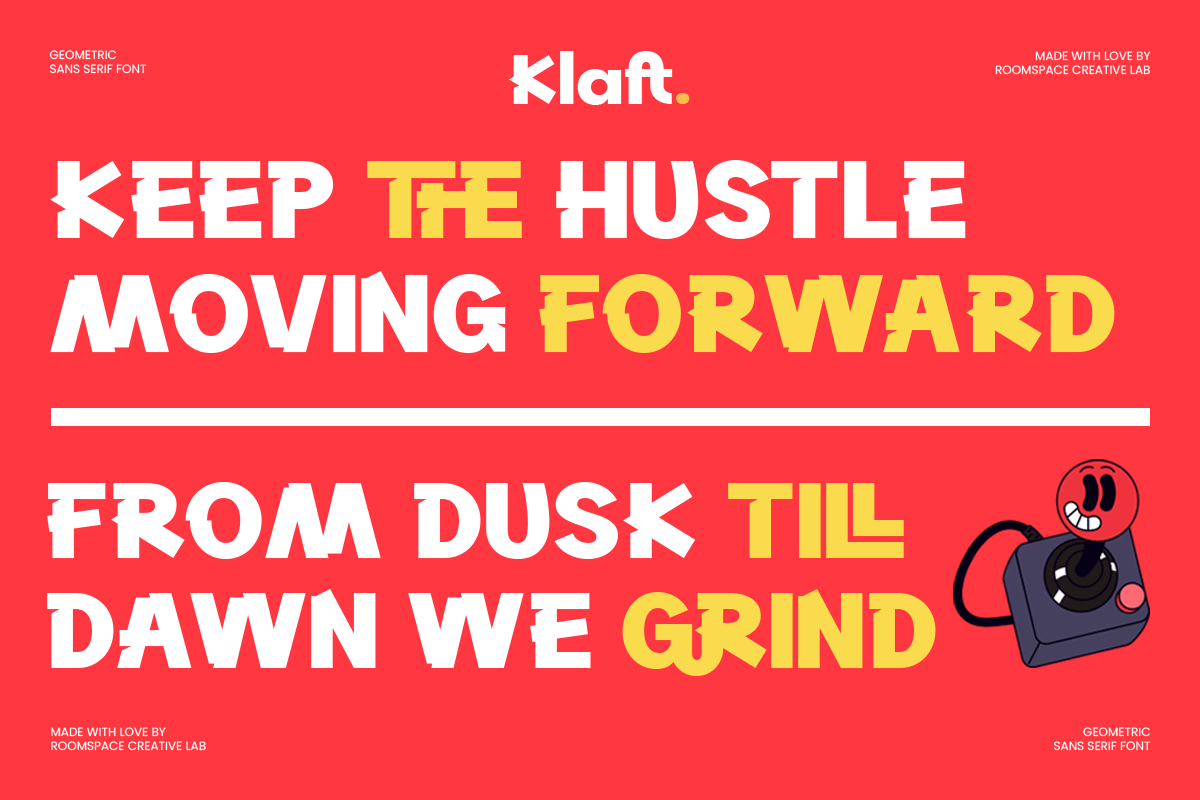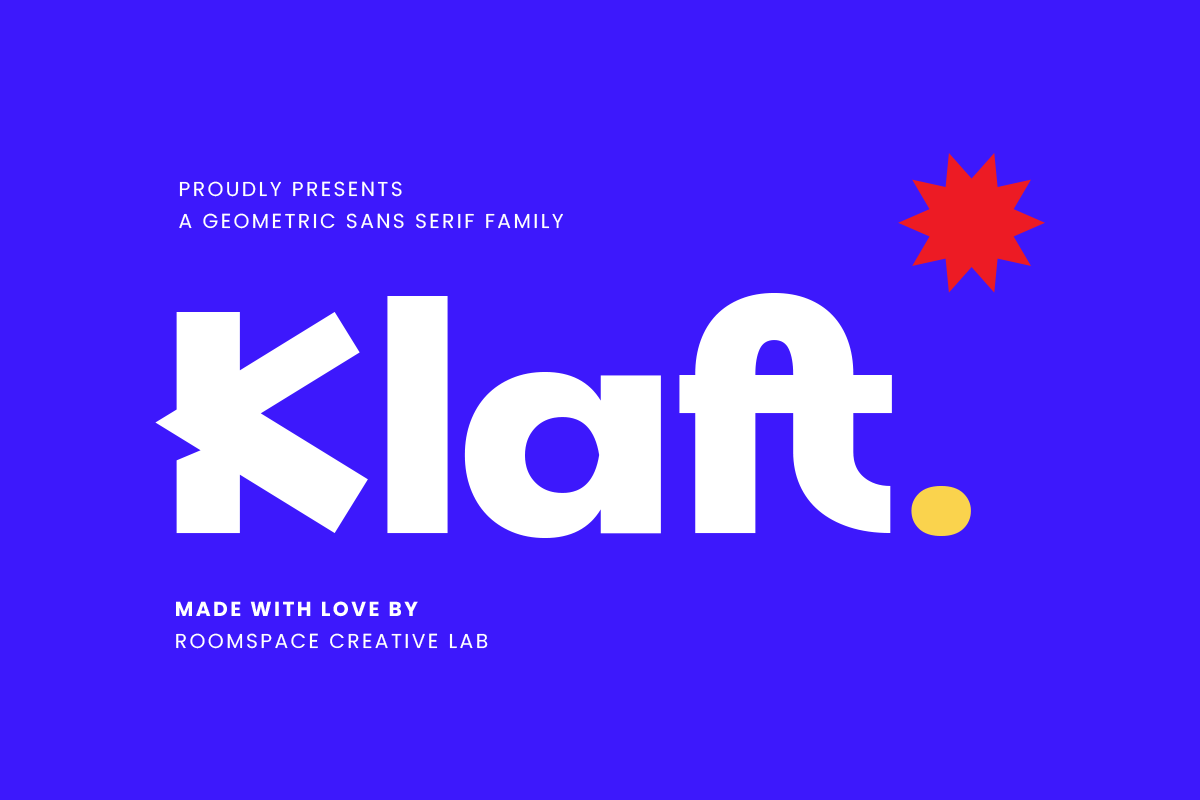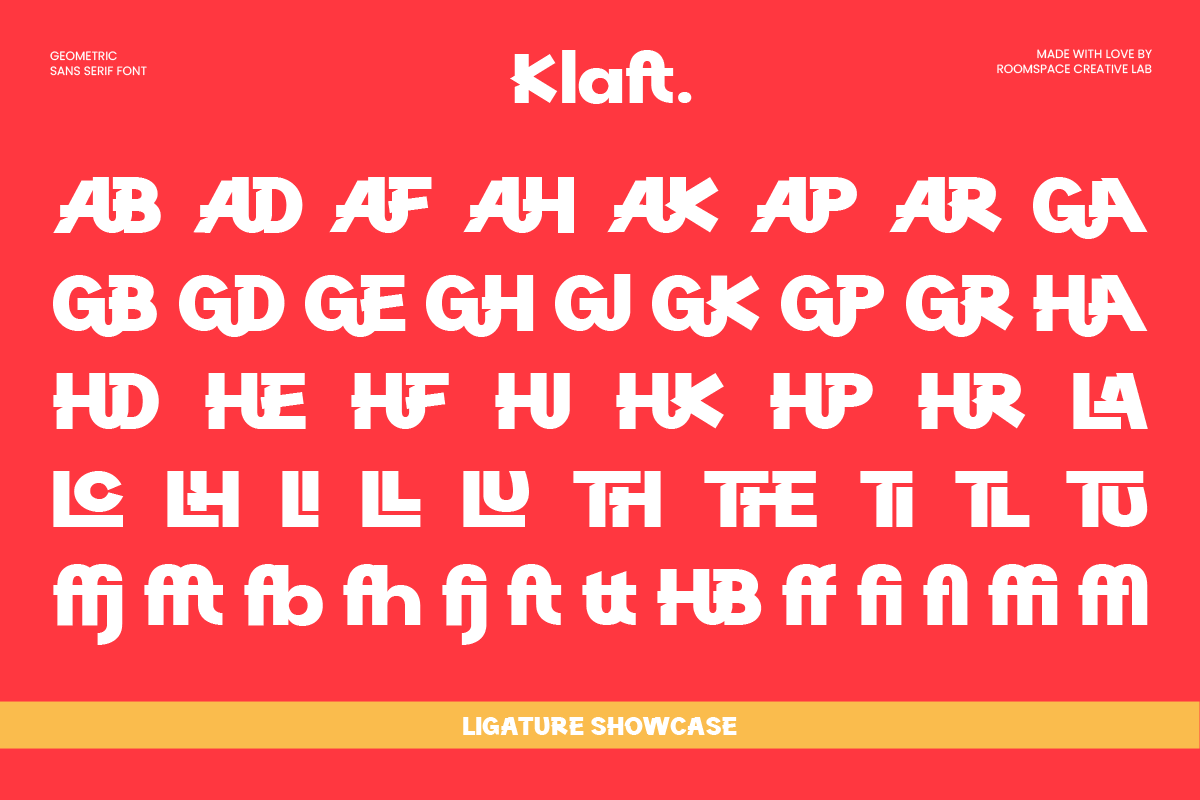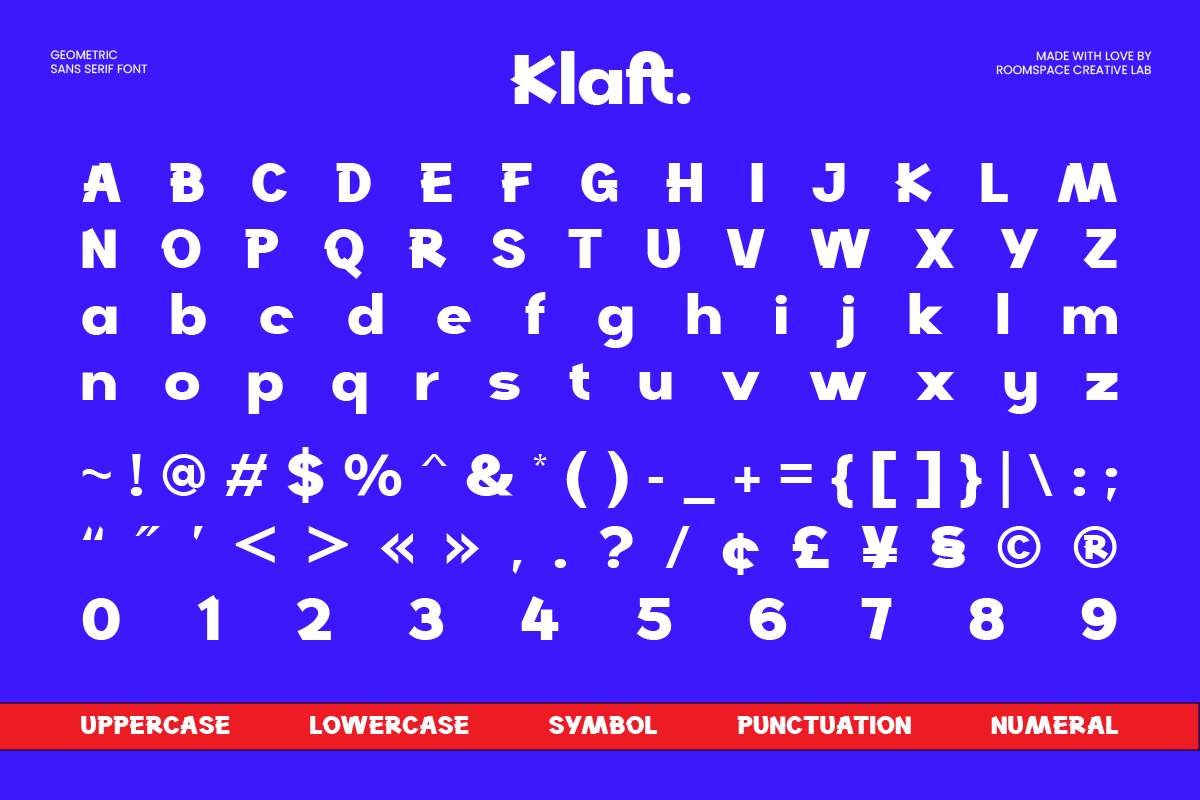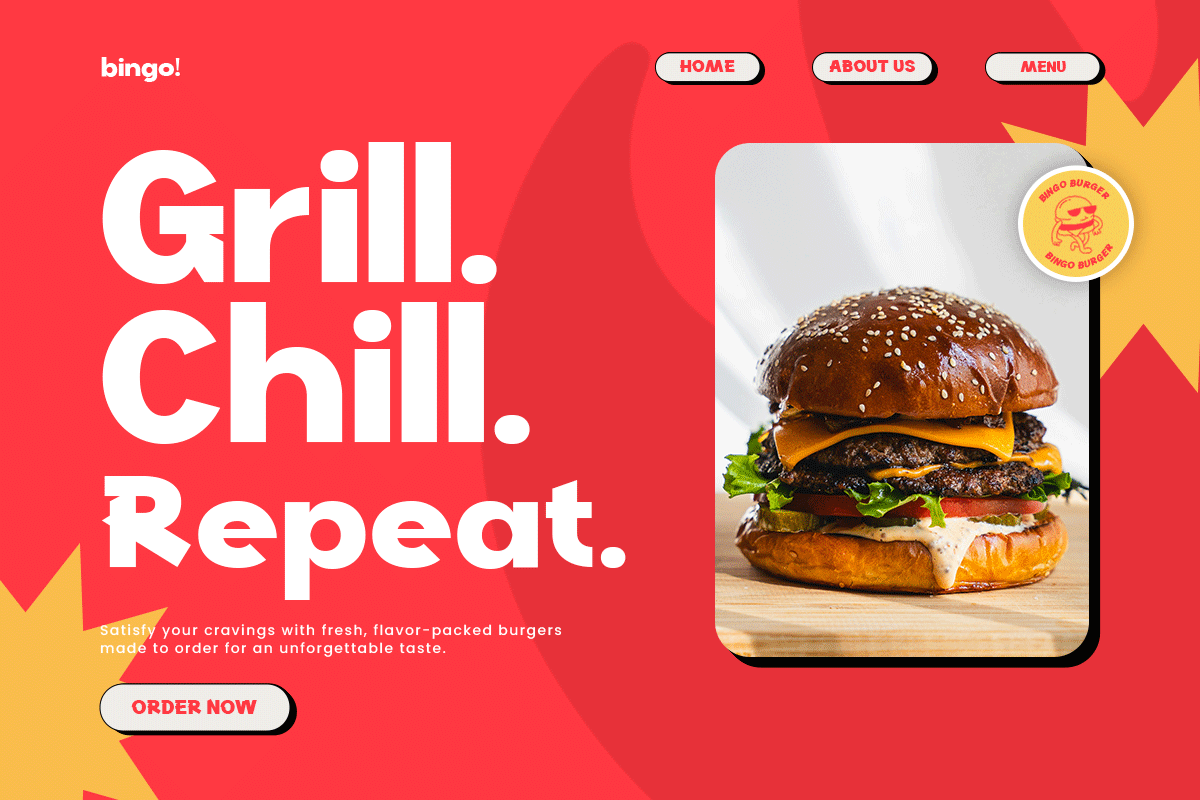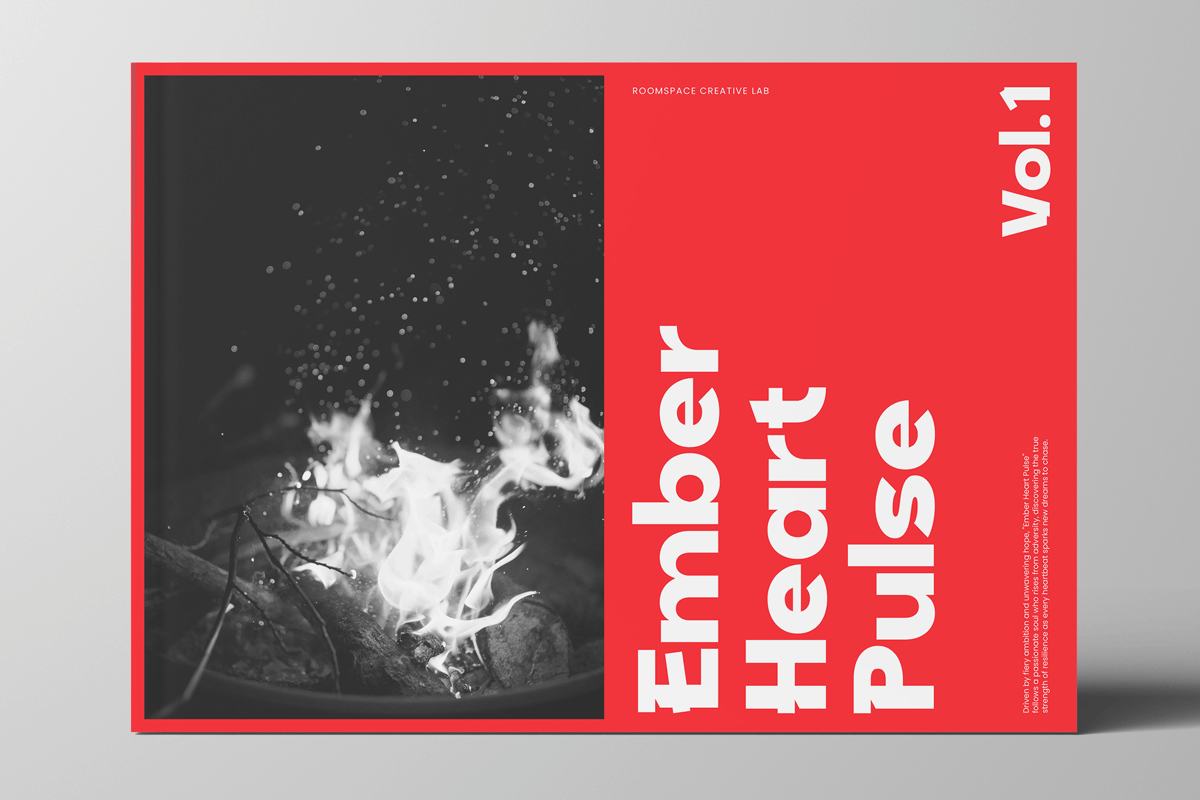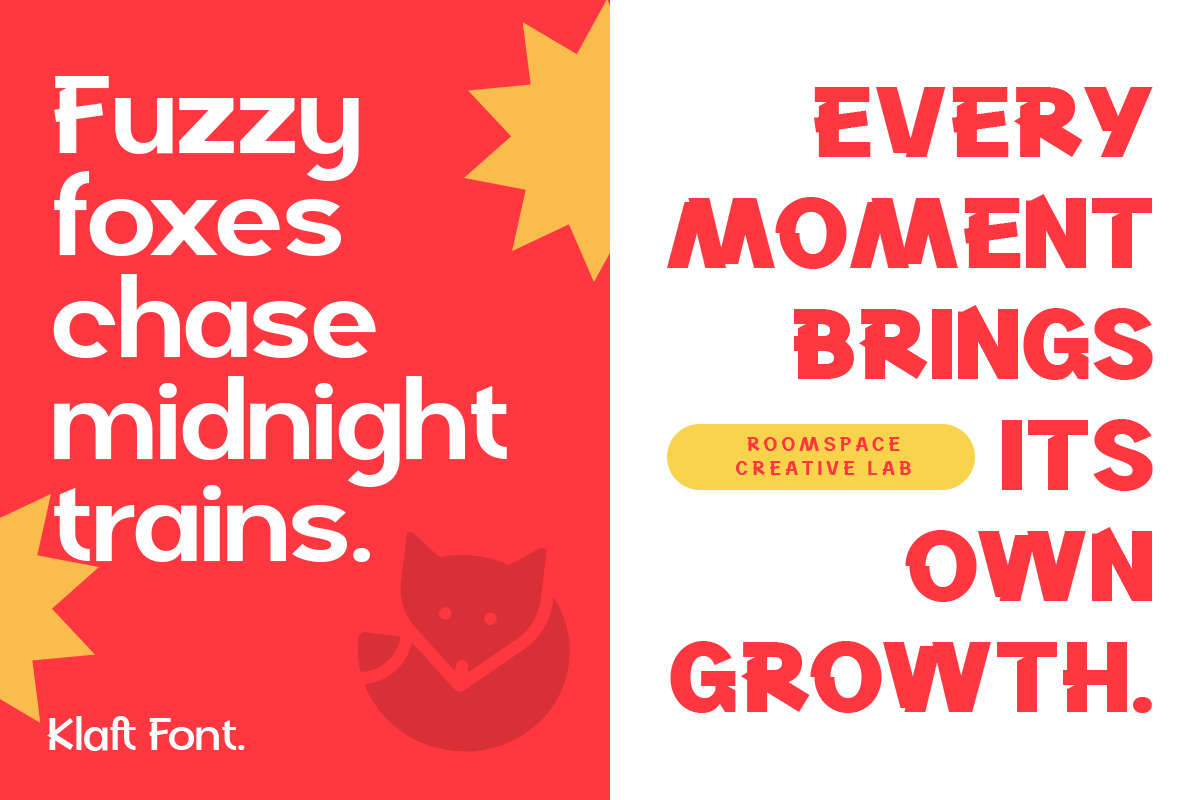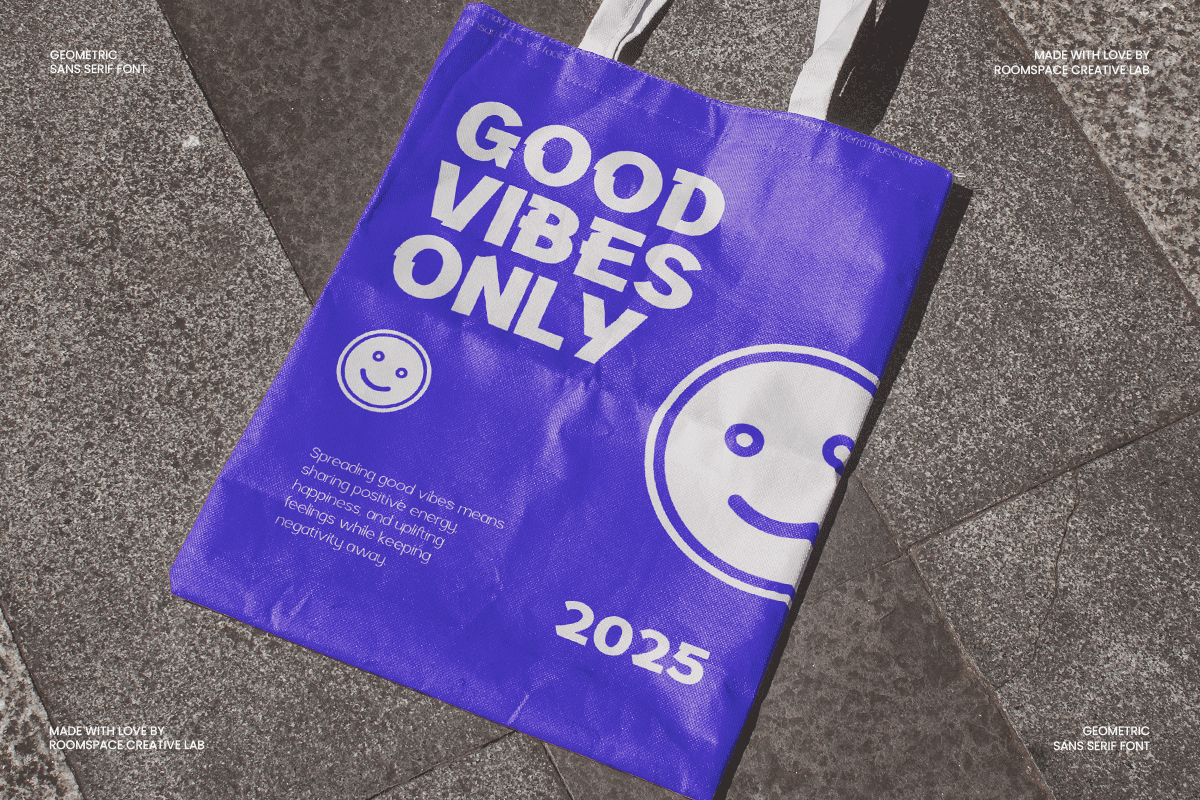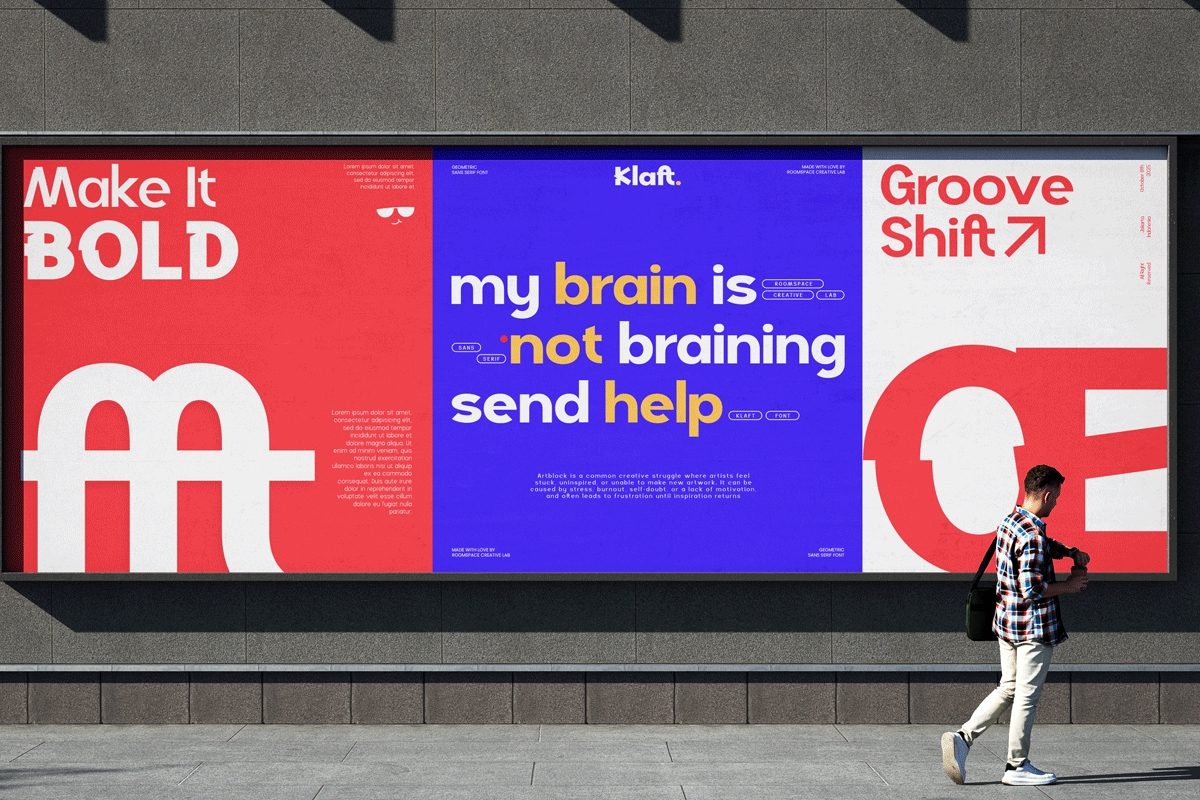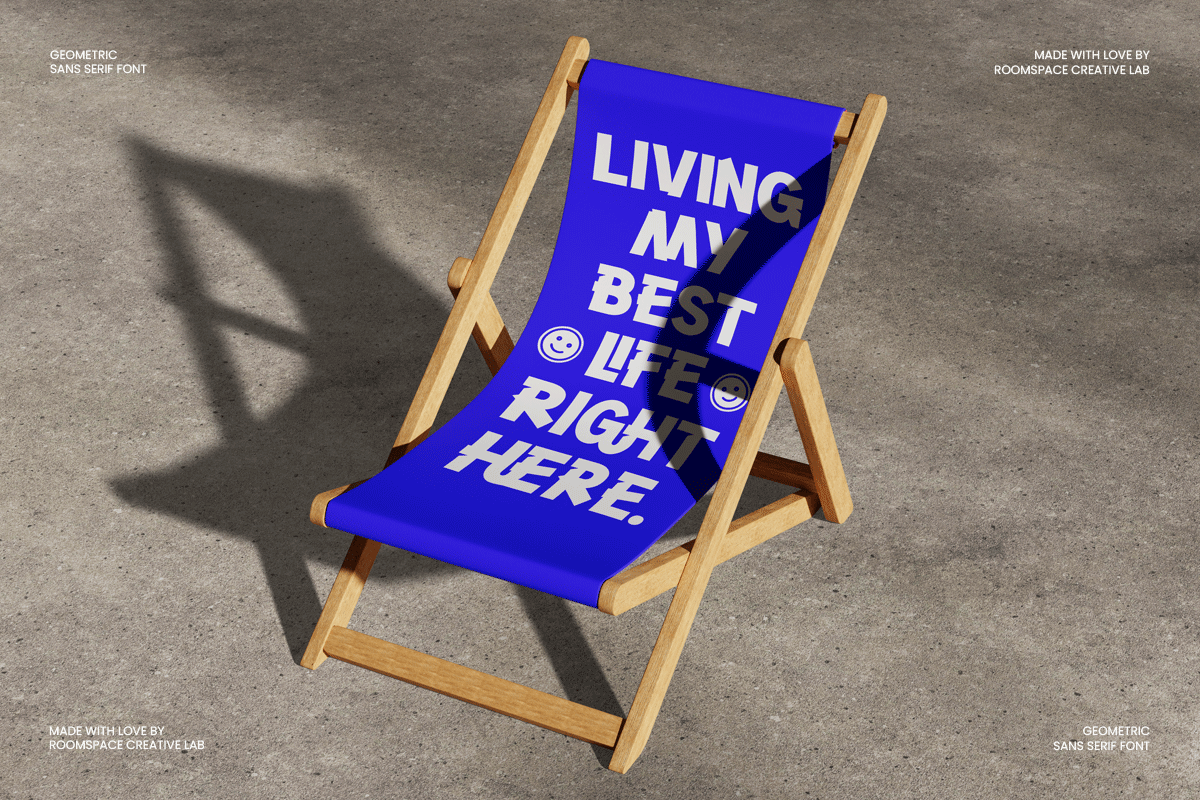
Klaft – Modern Bold Sans Serif Font
Klaft is a modern bold sans serif font built on strong geometric shapes and clean visual balance. It brings a fresh, confident personality to any design blending simplicity with style. Whether for digital or print use, Klaft embodies the perfect mix of professionalism and modernity, making your message stand out with clarity and impact.
Every curve and edge of Klaft is carefully crafted to ensure smooth legibility and consistent kerning. Its bold structure gives strength to headlines, while the subtle geometric touch adds warmth and approachability. The font includes uppercase, lowercase, punctuation, numerals, and multilingual support giving you flexibility for a wide range of creative applications.